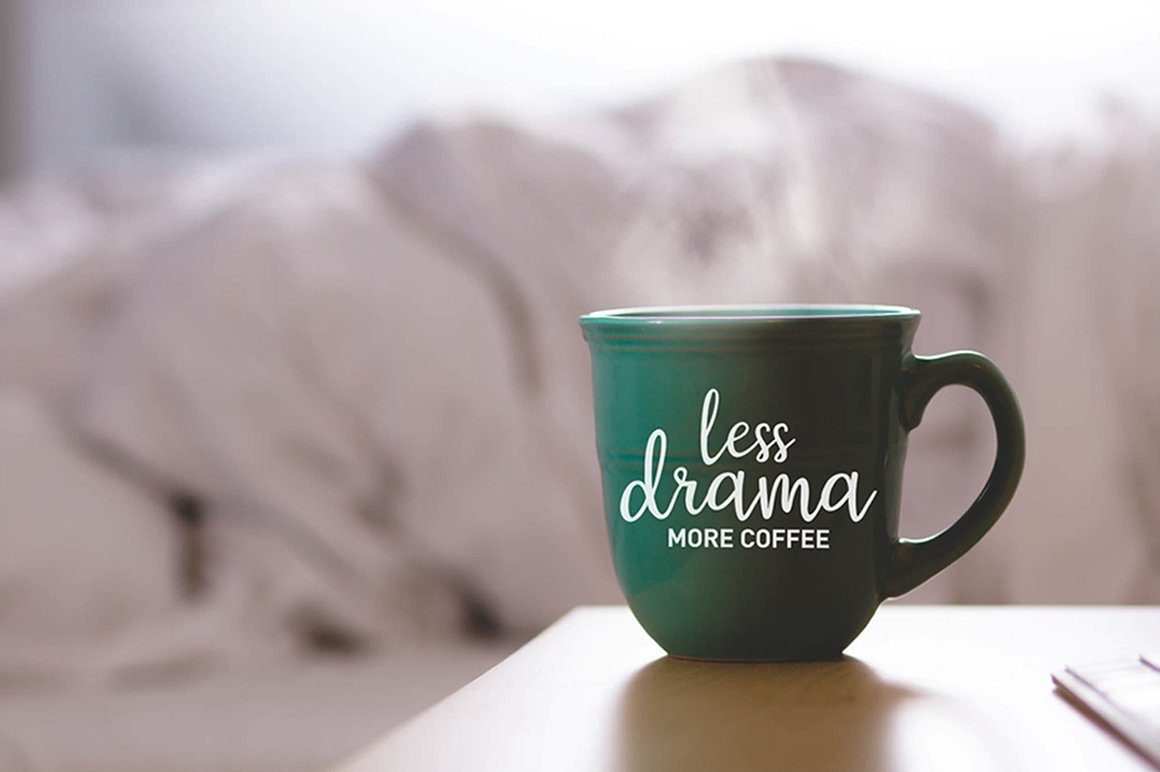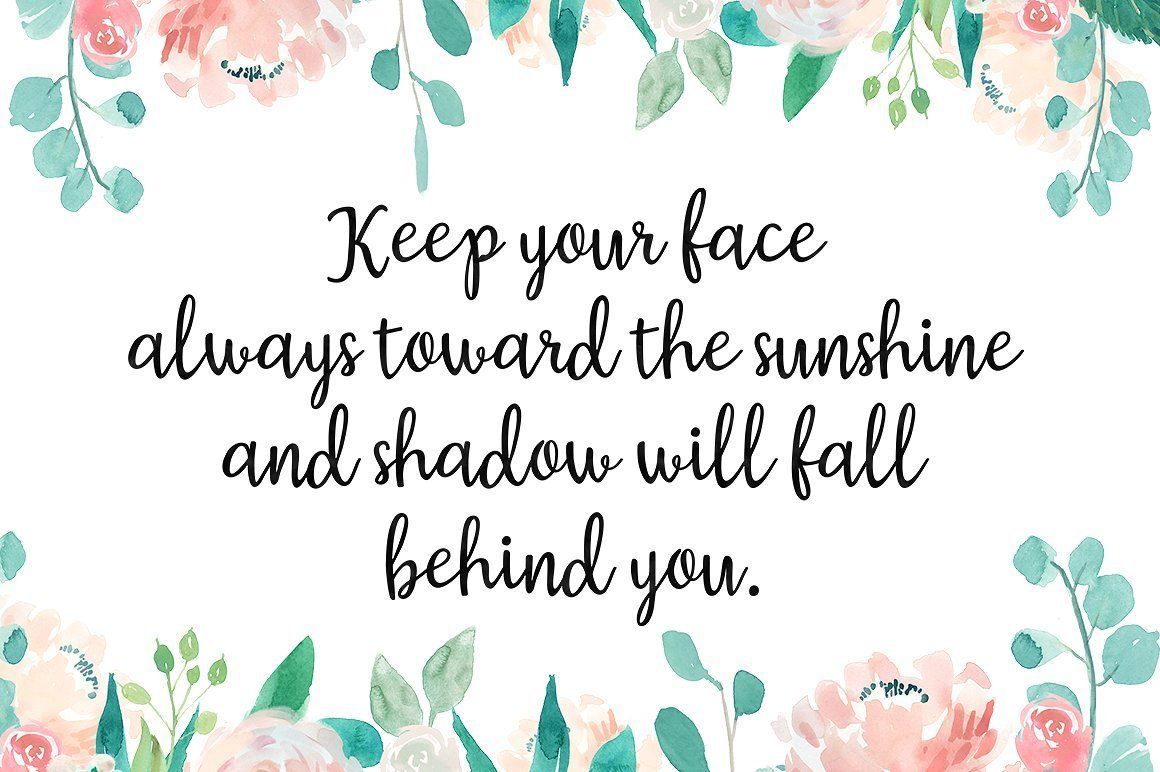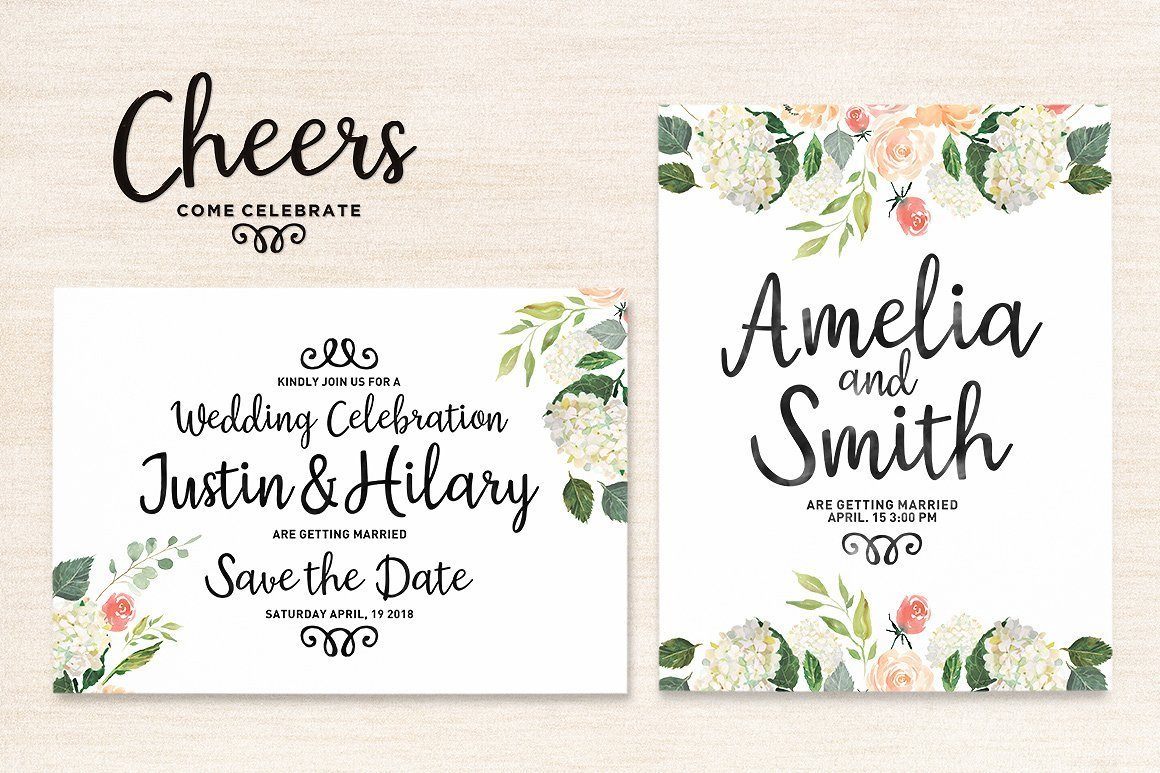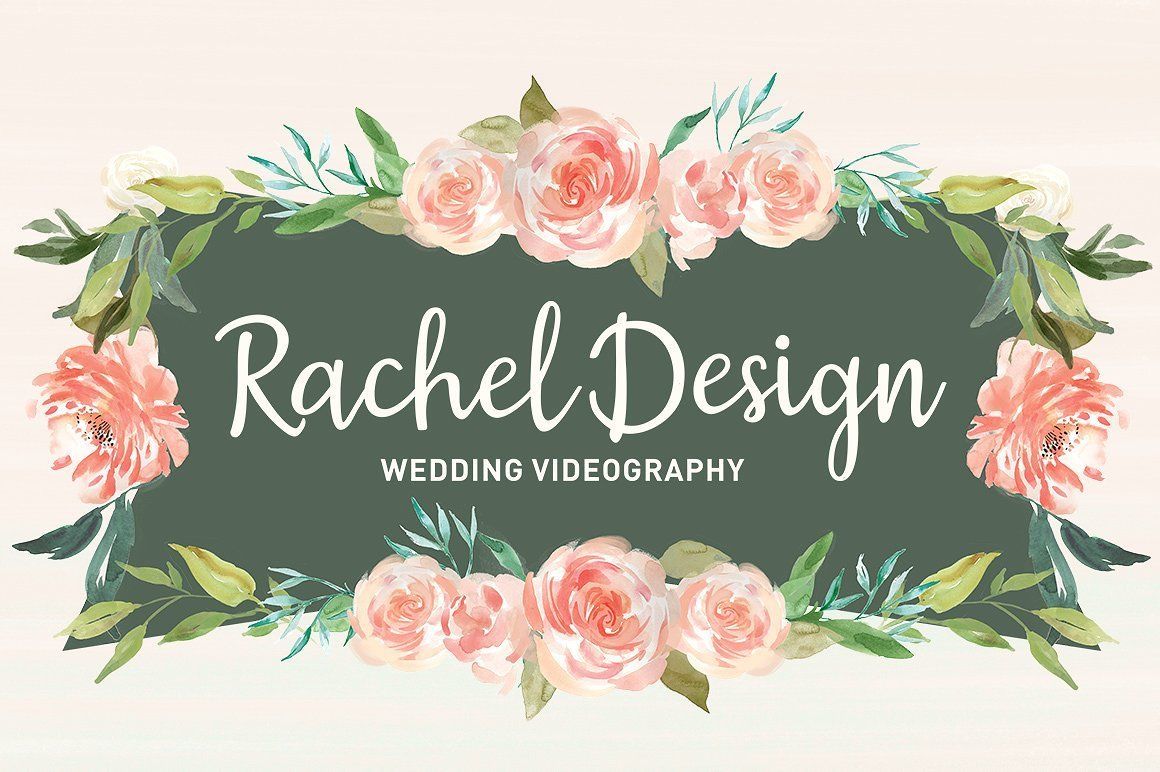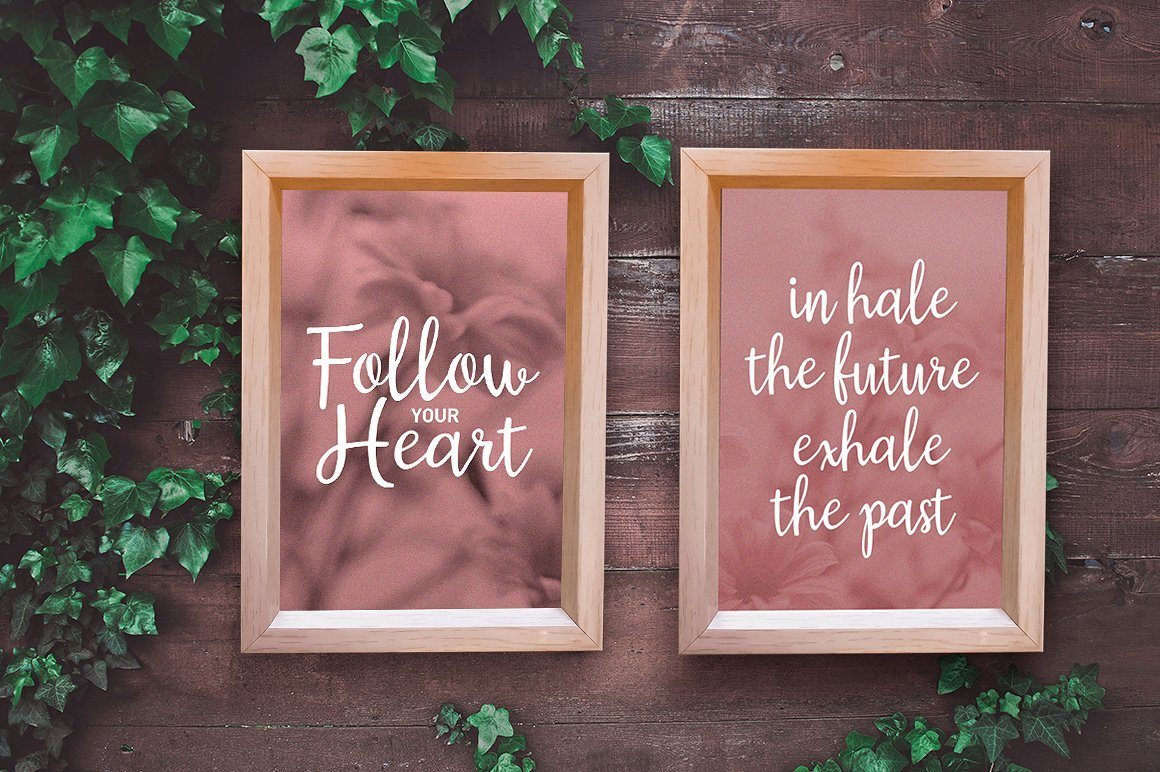
Austin Script is a new modern script font with an irregular baseline. Trendy and feminine style. Austin looks lovely on wedding invitations, thank you cards, quotes, greeting cards, logos, business cards and more. Perfect for using in ink or watercolour. Including initial and terminal letters, alternates and multiple language support. Files included: Austin Script.OTF Austin Script.TTF To enable the OpenType Stylistic alternates, you need a program that supports OpenType features such as Adobe Illustrator CS, Adobe Indesign & CorelDraw X6-X7, Microsoft Word 2010 or later versions. There are additional ways to access alternates/swashes, using Character Map (Windows), Nexus Font (Windows), Font Book (Mac) or a software program such as PopChar (for Windows and Mac). How to access all alternative characters: https://www.youtube.com/watch?v=Go9vacoYmBw https://www.youtube.com/watch?v=XzwjMkbB-wQ https://www.youtube.com/watch?v=x1A_ilsBsGs https://www.youtube.com/watch?v=xFlMwARHusY Thanks so much for looking and please let me know if you have any questions.